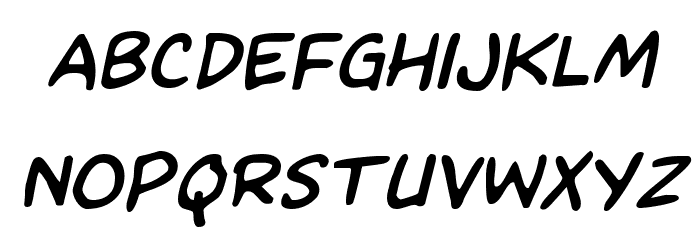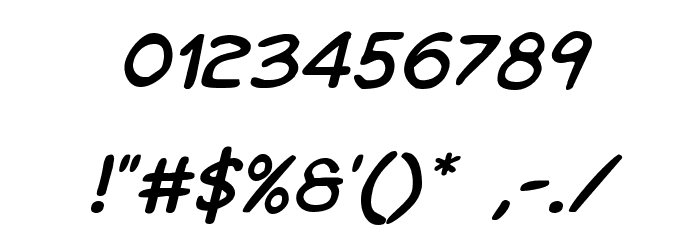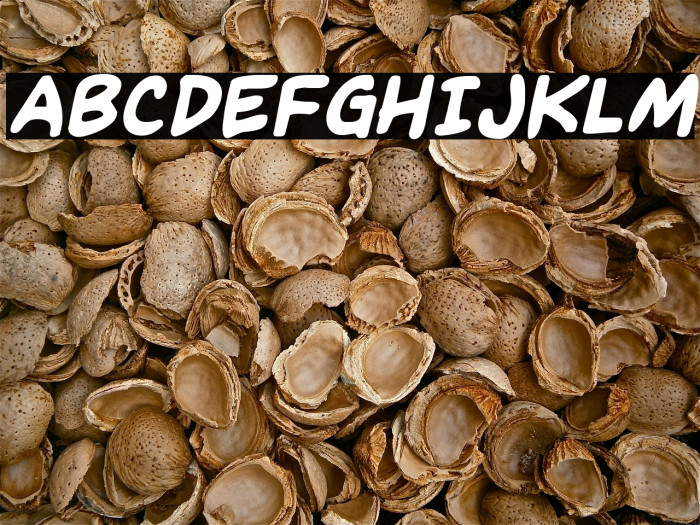
Kangaroo Court Italic Font
This font features a playful and dynamic style with a handwritten appearance. The letters are slightly slanted, giving it an italicized look that adds a sense of motion and energy. The strokes are bold and rounded, providing a friendly and approachable feel. The characters are well-spaced, ensuring readability while maintaining a casual aesthetic. This font is versatile, suitable for projects that require a personal touch or a fun, informal vibe.
A playful, handwritten italic font with bold, rounded strokes.
- Font: Kangaroo Court Italic
- Proposed Projects: Ideal for greeting cards, children's books, playful branding, and casual invitations.
- Category: Handwritten
- Overall Style: Casual
- Use Case: Headlines, Logos, Informal Text